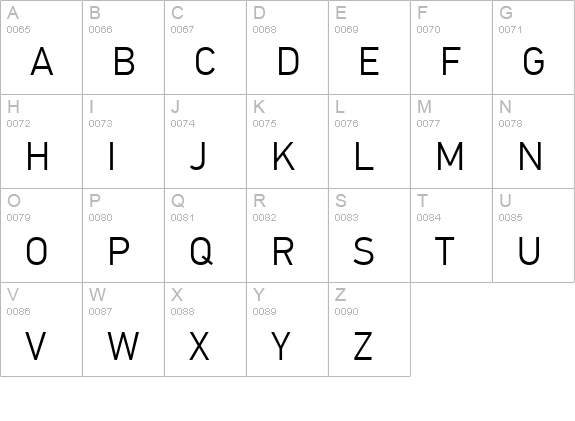
PFDinTextPro-Light is a refined, elegant variant in the PFDinTextPro typeface family \xE2\x80\x94 well suited to elegant body text, refined sub-headings, and luxury branding.
PFDinTextPro-Light is a modern and elegant font that exudes sophistication and professionalism. With its clean lines and simple yet stylish design, this font is perfect for a wide range of design projects, from branding to editorial design. The light weight of the font adds a touch of delicacy and refinement to any text it is applied to. The best part? PFDinTextPro-Light is available for free download at FontsMarket.com. This means you can easily access this high-quality font without any cost, making it a valuable addition to your font library. Whether you're working on a personal project or a client's design, PFDinTextPro-Light is a versatile and reliable font choice that will elevate your work to the next level. Access this font today and enhance your designs with its timeless appeal.